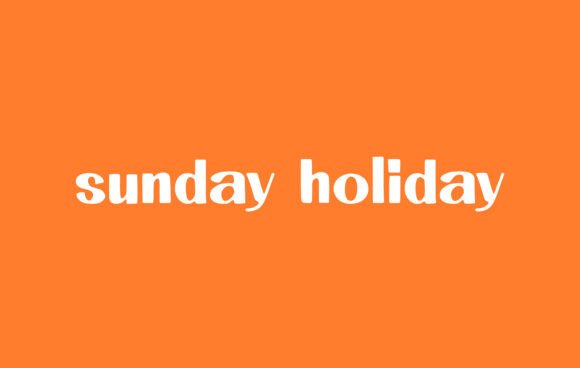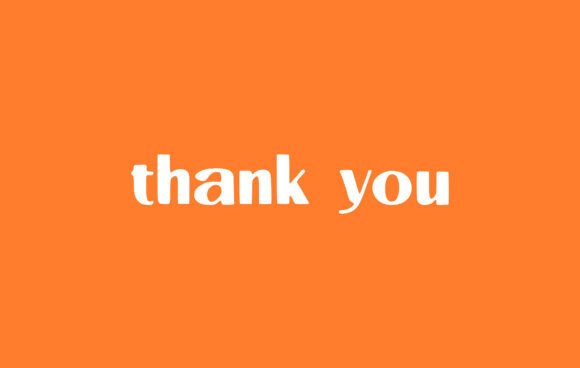
The August Font: A Romantic Touch for Your Creative Projects
I’ll never forget the time I was working on a wedding invitation design project, and my client asked me to create a beautiful, elegant title that would set the tone for the entire event. I spent hours scrolling through font libraries, but nothing seemed quite right. That was until I stumbled upon the August font. With its romantic touch and authentic feel, it instantly captured the essence of the occasion. In this article, I’ll share my experience with the August font, its features, and how to make the most of it in your creative projects.
A Personal Review of August Font
What I Love About August Font
• ✨ Legibility: August font is incredibly easy to read, making it perfect for both title and body text.
• ✅ Romantic Touch: The font’s elegant lines and curves add a touch of sophistication to any design.
• 💕 Versatility: It can be used for a wide range of projects, from magazine headlines to social media graphics, branding, wedding invitations, and more.
While the August font is exceptional, there are a few minor considerations to keep in mind:
• 🤔 Limited Contrast: The font’s line widths and curves can make it challenging to use in designs that require high contrast.
• ⚠️ Glyph Support: Some OpenType features might not be supported in older software versions or certain platforms.
The Story Behind August Font
The August font was designed with the intention of capturing the essence of classic elegance and romance. Inspired by vintage typography and refined through expert craftsmanship, August font brings a touch of sophistication to any design. While the actual designer remains a mystery, their passion for typography and commitment to quality shine through in every detail of the font.
Q: What makes August font stand out? A: August font stands out due to its romantic touch, legibility, and versatility, making it perfect for a wide range of creative projects.
Q: Is August font suitable for body text? A: Absolutely! August font is designed to be legible and can be used for both title and body text.
Q: Does August font support OpenType features? A: Yes, August font supports various OpenType features, including stylistic alternates and glyphs, which can enhance your design.